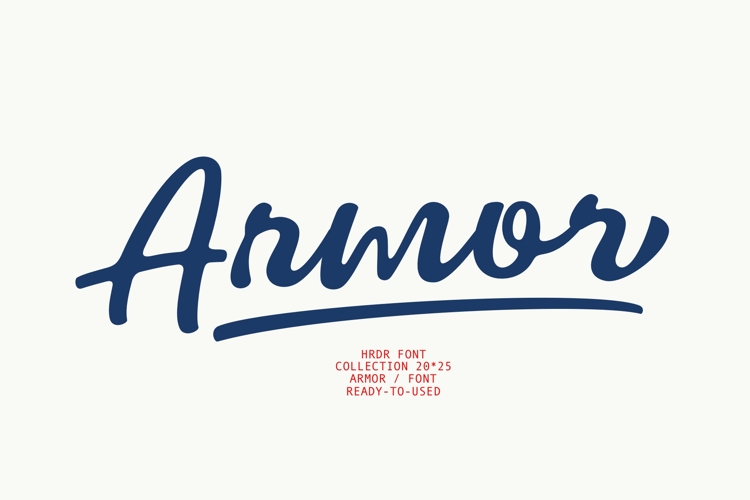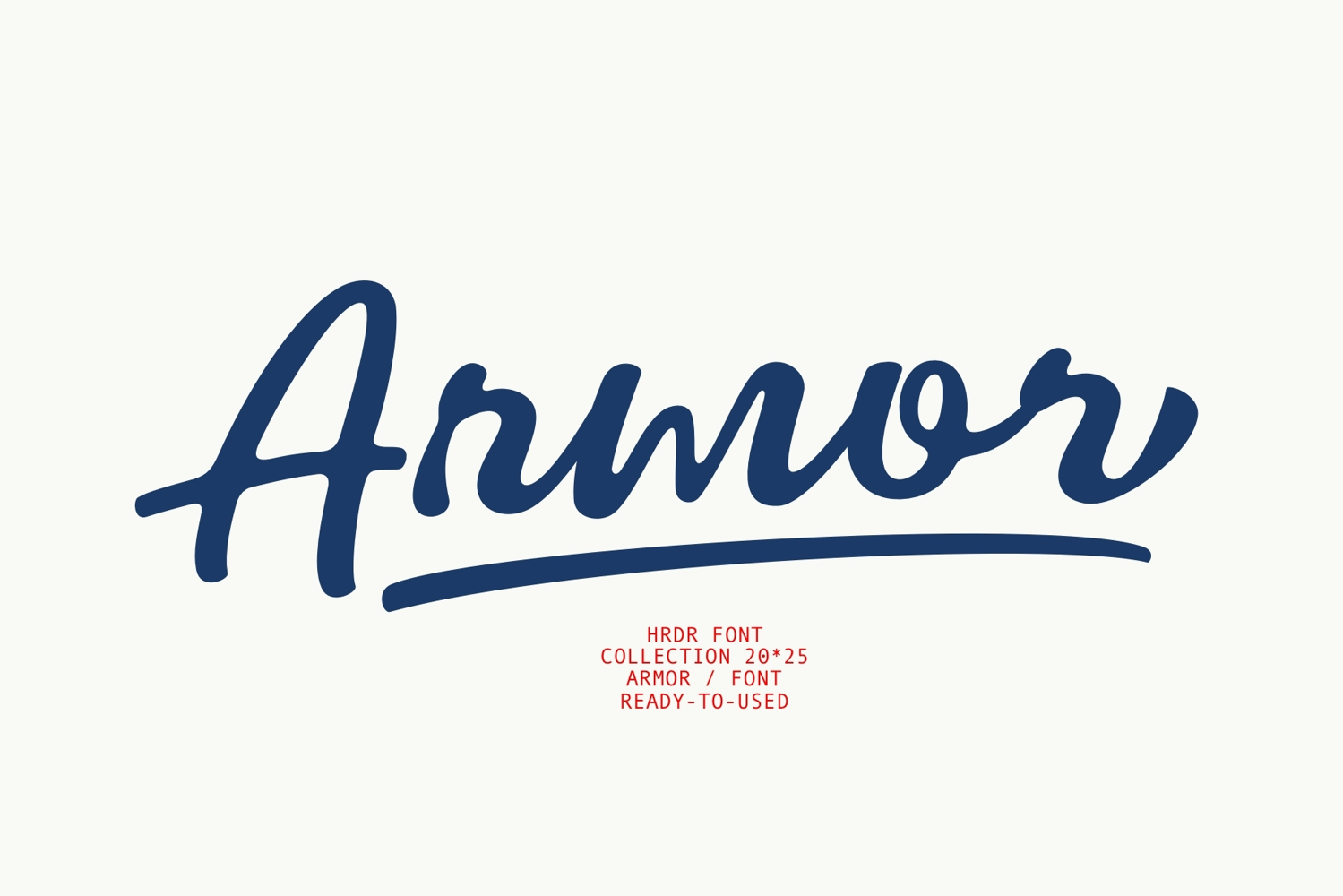
Armor is a Elegant Script font. It's perfect for branding, wedding invitations, photography, Neon Sign, bloggers, logos, greeting cards, Logo, Quotes and more.